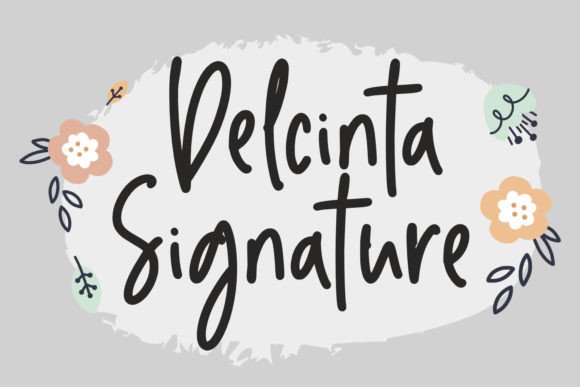
Come immerse yourself in the world of Delcinta Signature, a script font that unravels a realm of elegance and artistic expression. Exquisitely crafted with beautiful curves, this font dances across your screen like a handwritten masterpiece. Delcinta Signature isn't just a font; it's an artistic journey that captivates the essence of personal touch and sophistication.
Unleash your creative spirit and let your web designs flourish with the grace and charm of Delcinta Signature. Whether you're weaving tales on a personal blog or crafting an enchanting e-commerce experience, this font will become your muse, adding a touch of exclusivity that sets you apart.
With its careful design, Delcinta Signature ensures clarity and readability, even in the digital realm. Its presence on your website will create an unforgettable experience for visitors, leaving them spellbound by your attention to detail and creativity.
Transform your digital creations into works of art with Delcinta Signature. Its unique character will reflect the individuality of your brand, leaving a lasting impression that resonates with your audience. Delcinta Signature is more than a font; it's an invitation to embark on a creative odyssey, where your ideas take center stage and your website becomes a canvas of artistic expression.